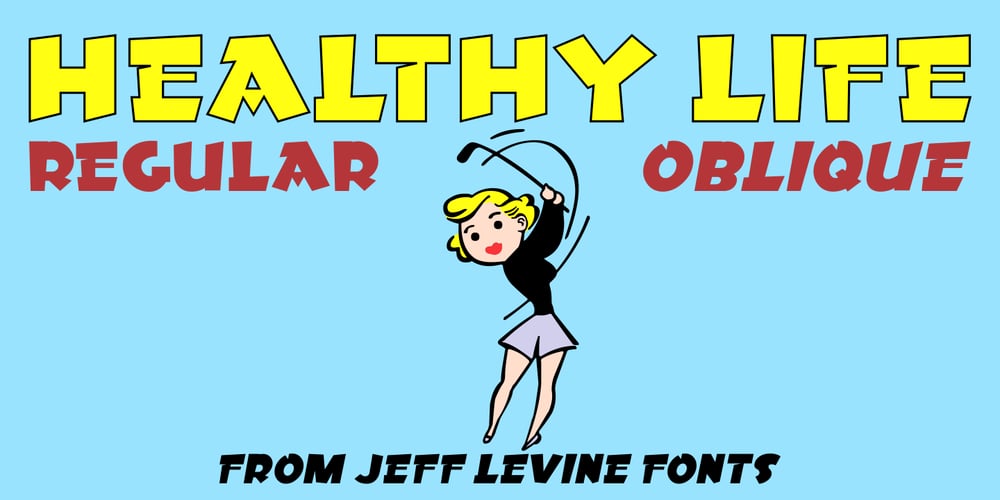
Healthy Life JNL Font Family was designed by Jeff Levine and published by Jeff Levine. Healthy Life JNL contains 2 styles and family package options. A 1947 series of Health Physics Posters from the Oak Ridge National Laboratory had each topic hand lettered in an extra bold, casual and playful sans serif style.This fun type design is the perfect poster font because it conveys a strong message without being too overbearing.Healthy Life JNL is now available in both regular and oblique versions.